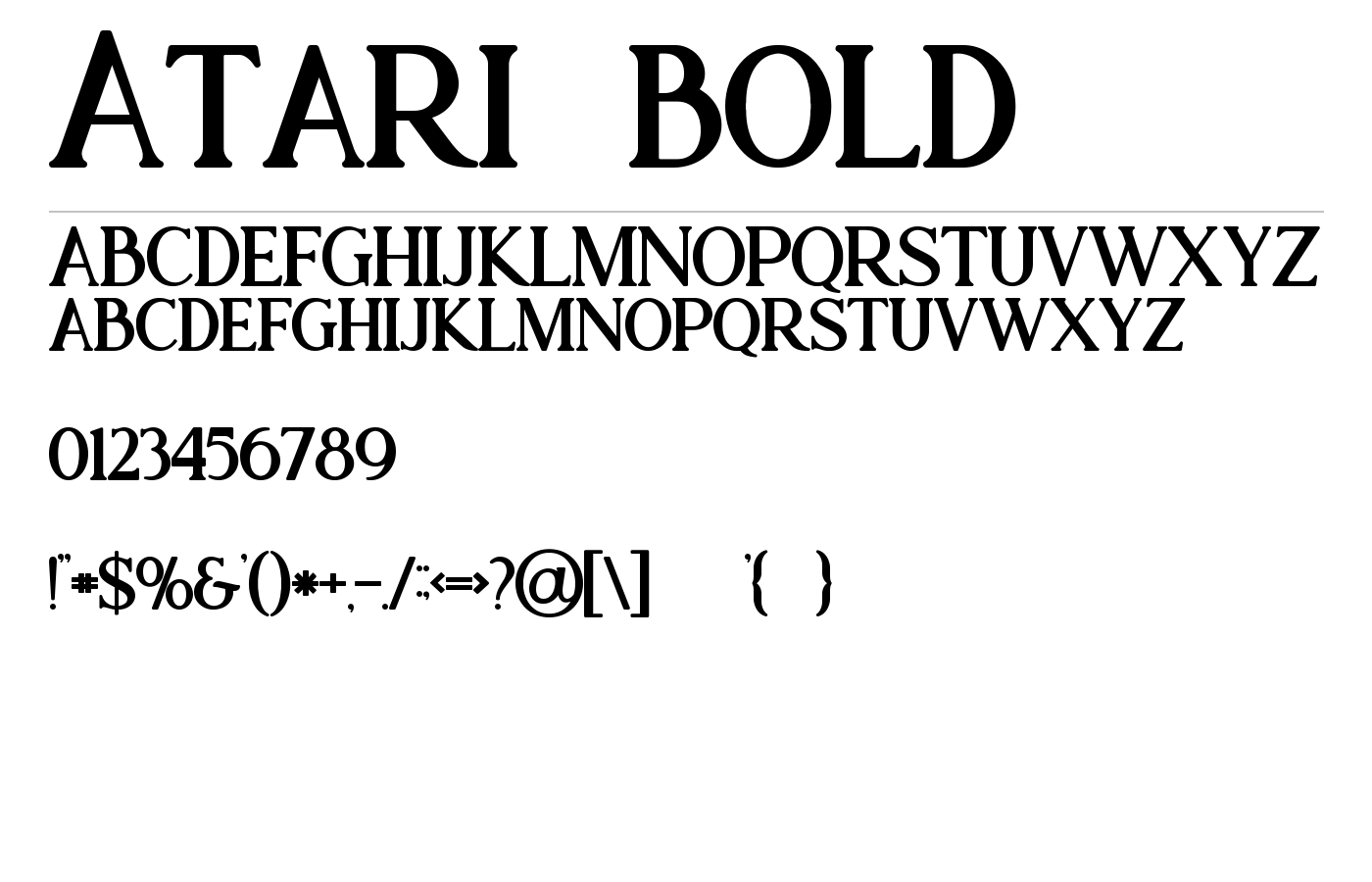
Atari Bold is a serif typeface with a strong, classic personality characterized by its medium-high contrast and sharp, bracketed serifs. Its condensed letterforms and elegant shapes convey a vintage yet authoritative feel, making it ideal for vintage branding, editorial headlines, and logos that seek a blend of tradition and bold impact. This font stands out with its refined style and readability, perfect for projects that want to evoke sophistication with a nostalgic touch.
Atari Bold Font
About Atari Bold Font